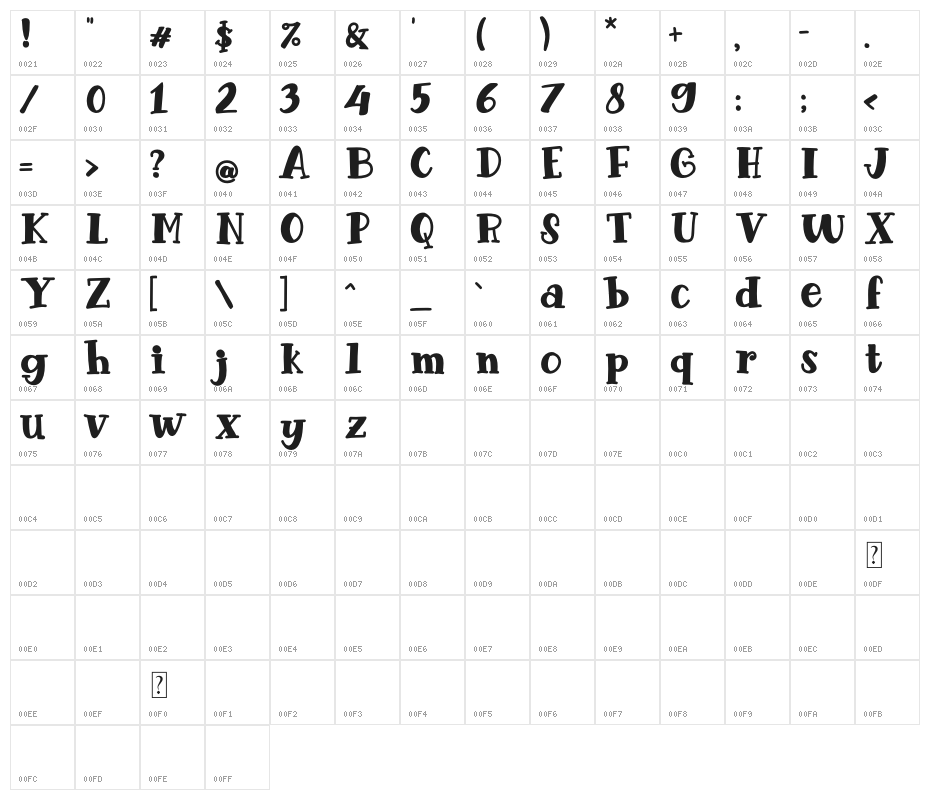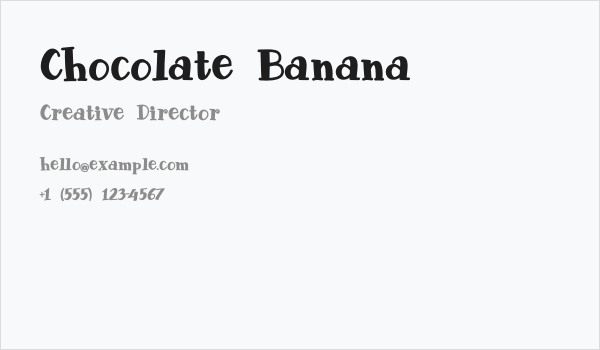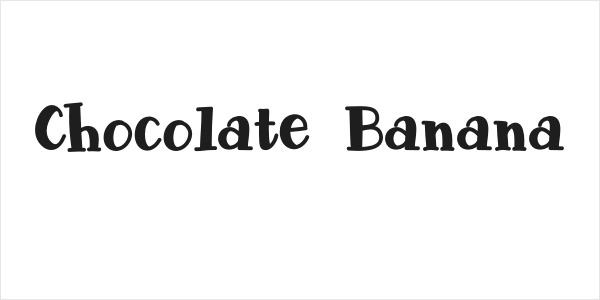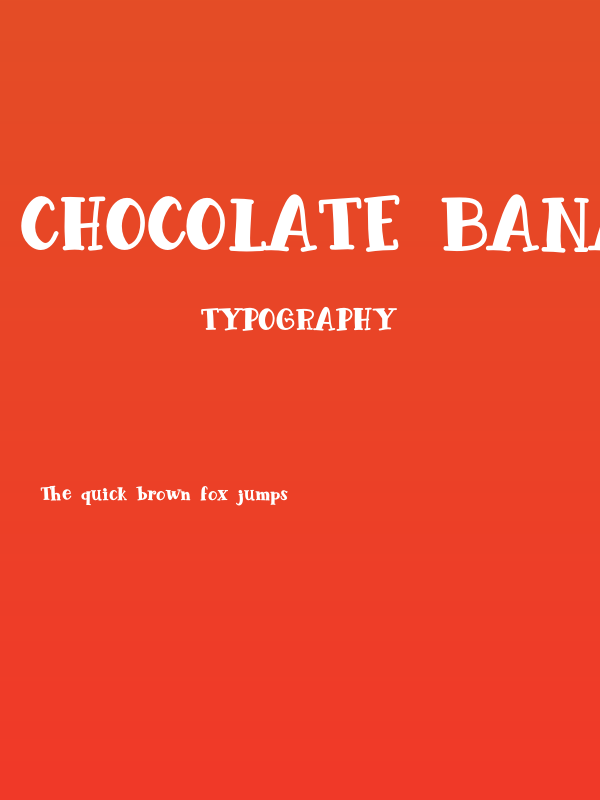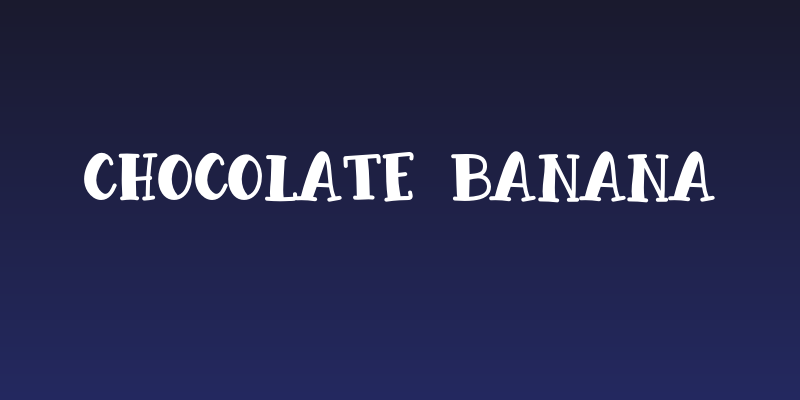
Chocolate Banana Font
Chocolate Banana Description
This playful and whimsical font features bold, rounded characters with a hand-drawn aesthetic. The uppercase letters are slightly irregular, adding a sense of fun and creativity. The lowercase letters maintain a consistent style, with some characters having unique flourishes that enhance their charm. Numbers are bold and easy to read, while special characters are designed to match the overall playful theme. The font's thick strokes and rounded edges give it a friendly and approachable feel, making it ideal for projects that aim to convey warmth and creativity.
| Proposed Projects | Ideal for children's books, playful branding, greeting cards, and creative posters. |